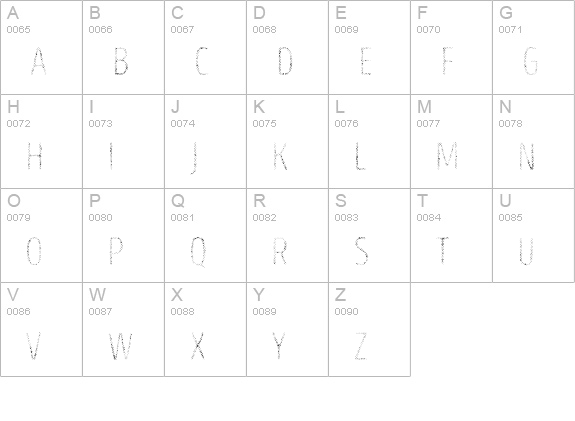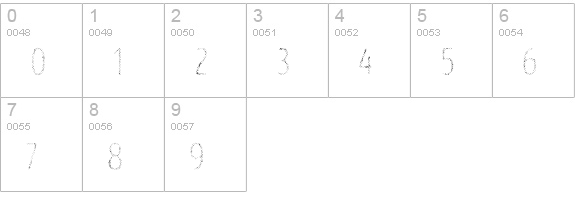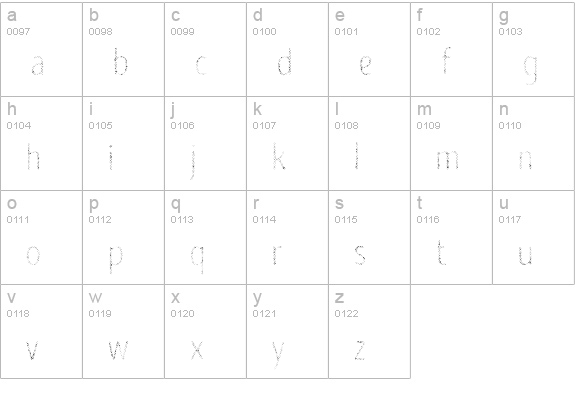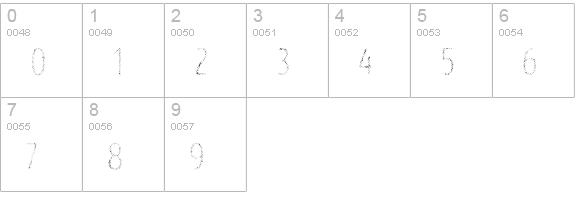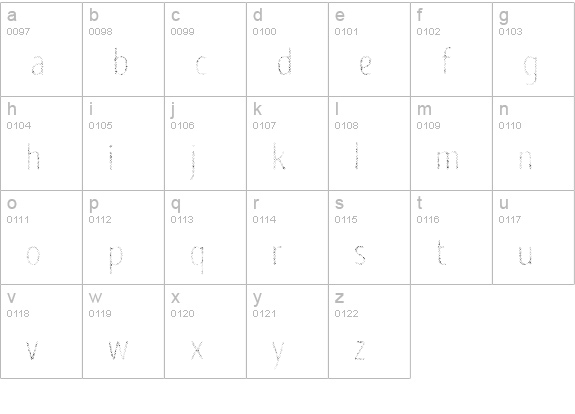
Intro Head R H2 Font Details
"Intro Head R H2 font is a modern and stylish typeface designed to make a bold impact. With its sleek lines and eye-catching design, this font is perfect for creating attention-grabbing headings and titles. Whether you're working on a website, poster, or branding project, Intro Head R H2 font will add a touch of sophistication to your designs. Best of all, this versatile font is available for free download at FontsMarket.com, making it easily accessible for all your creative projects. Enhance your typography with Intro Head R H2 font today!"